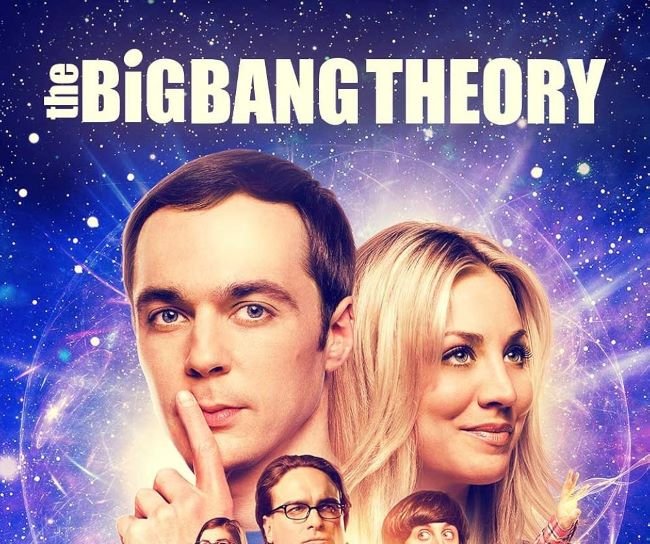
The Big Bang Theory font pairs its bold, comic-inflected display lettering with the show’s iconic atom graphic to create a title treatment that wears its geek credentials as cheerfully as Sheldon Cooper wears a Flash t-shirt — openly, proudly, and entirely without self-consciousness. The lettering has a rounded, slightly cartoon-adjacent quality that softens the scientific imagery, communicating that this is a show about brilliant people that anyone can enjoy, a balancing act that defined the series’ remarkable mainstream success across twelve seasons from 2007. The freely available The Big Bang Theory Font brings this warm, nerdy energy to designers’ projects.